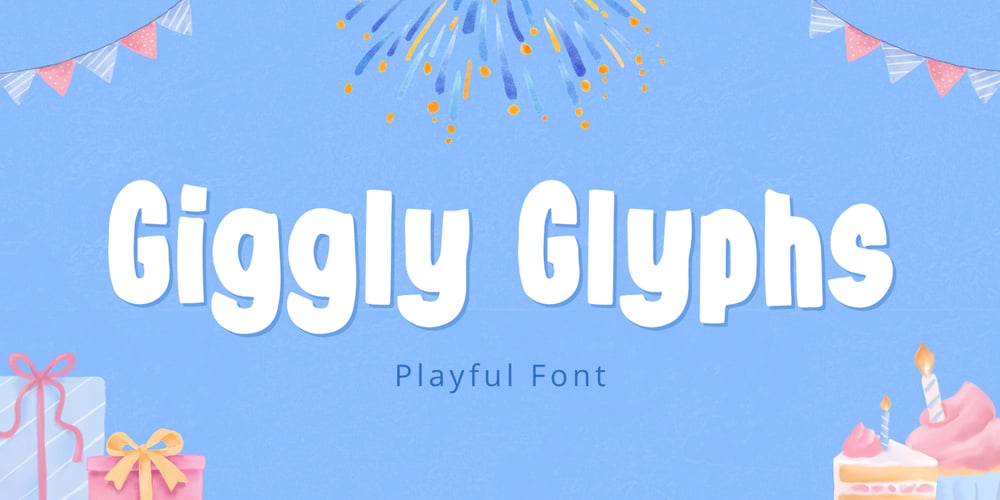
Giggly Glyphs
Giggly Glyphs font
Giggly Glyphs Font Family was designed by Yusup Saputra and published by DYSA Studio. Giggly Glyphs contains 1 styles and family package options. Introducing “Giggly Glyphs Font,” the ultimate font for all your fun and playful design needs!This delightful typeface is perfect for adding a touch of whimsy and cheerfulness to any project.